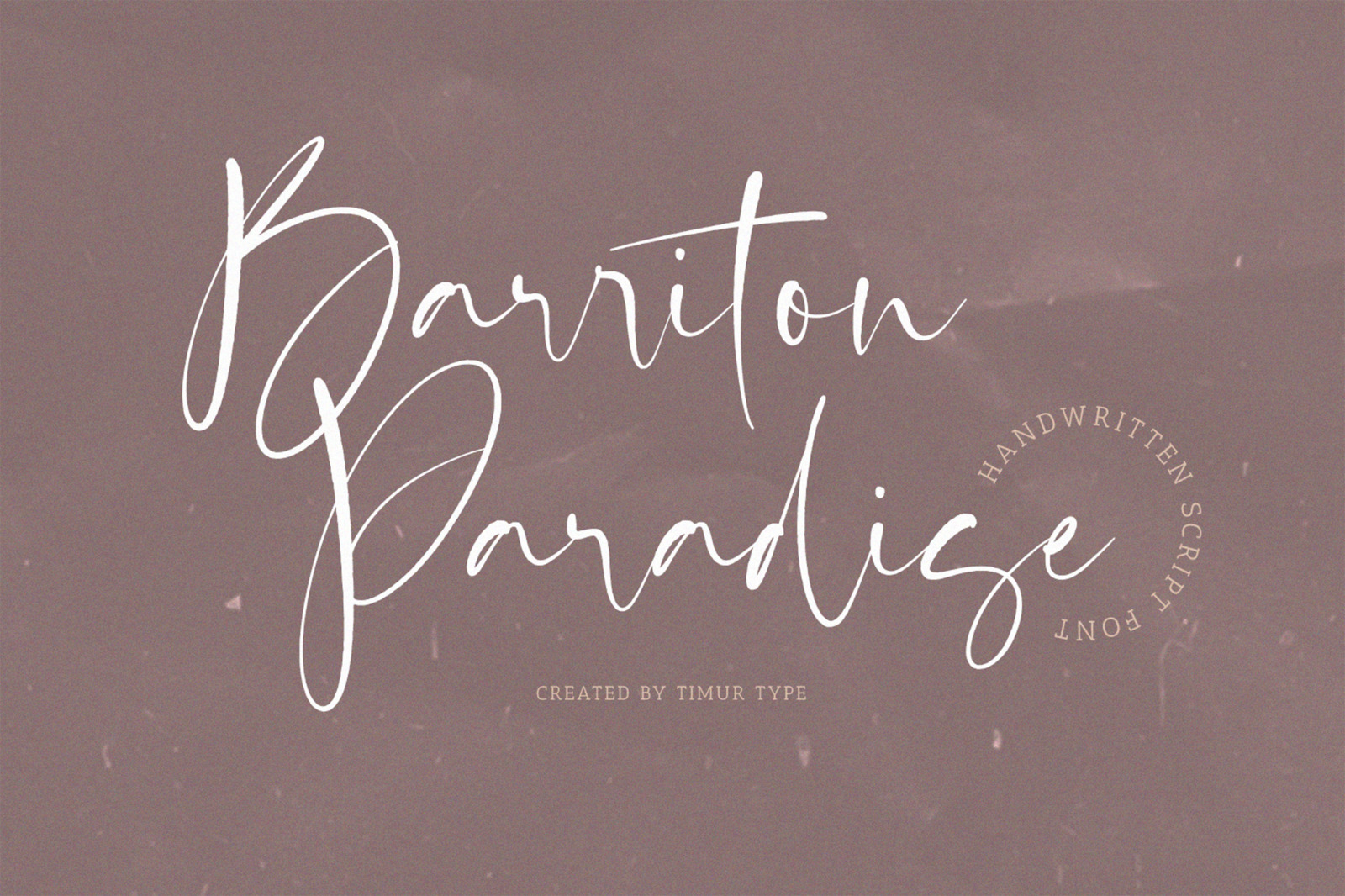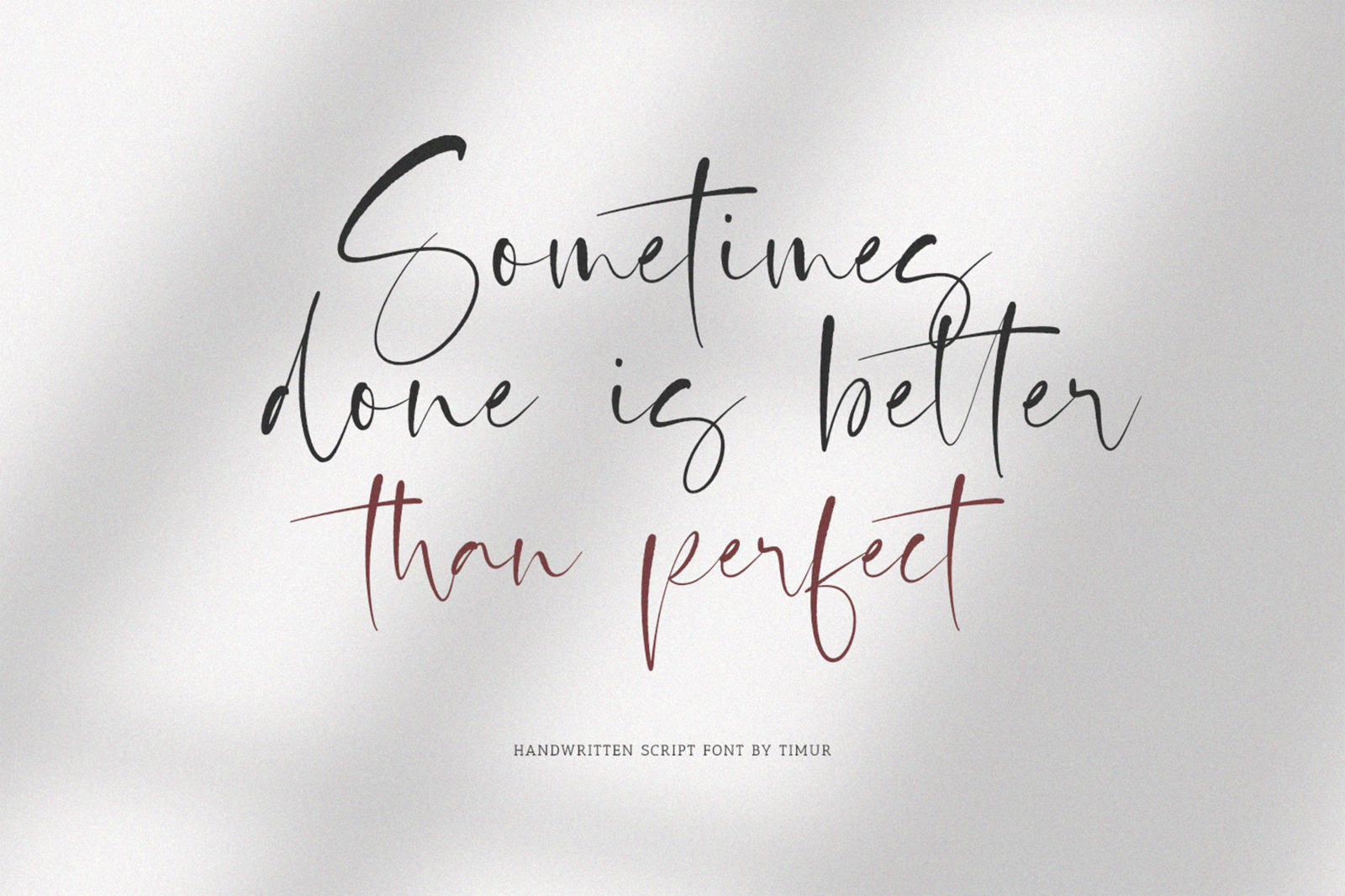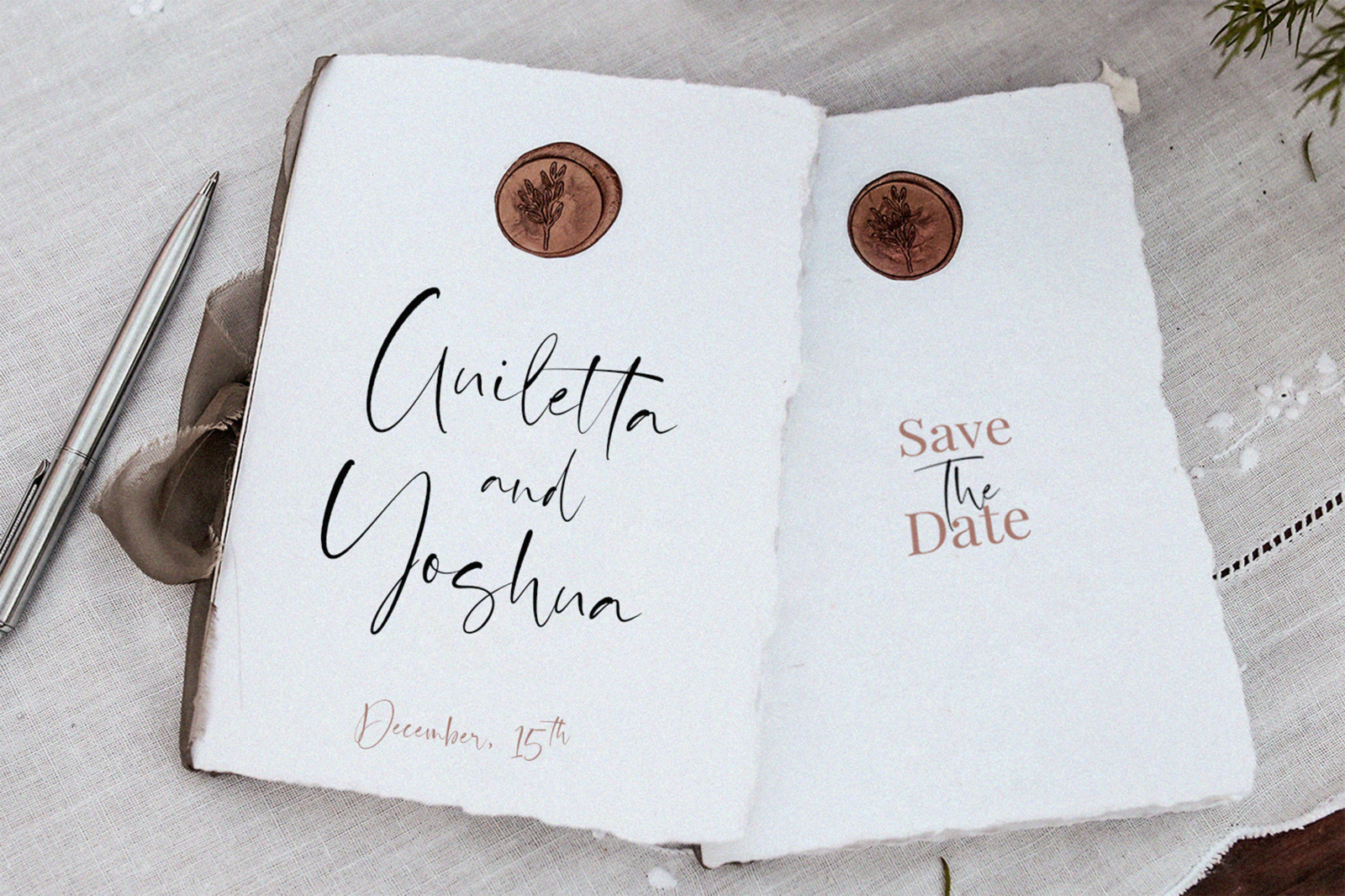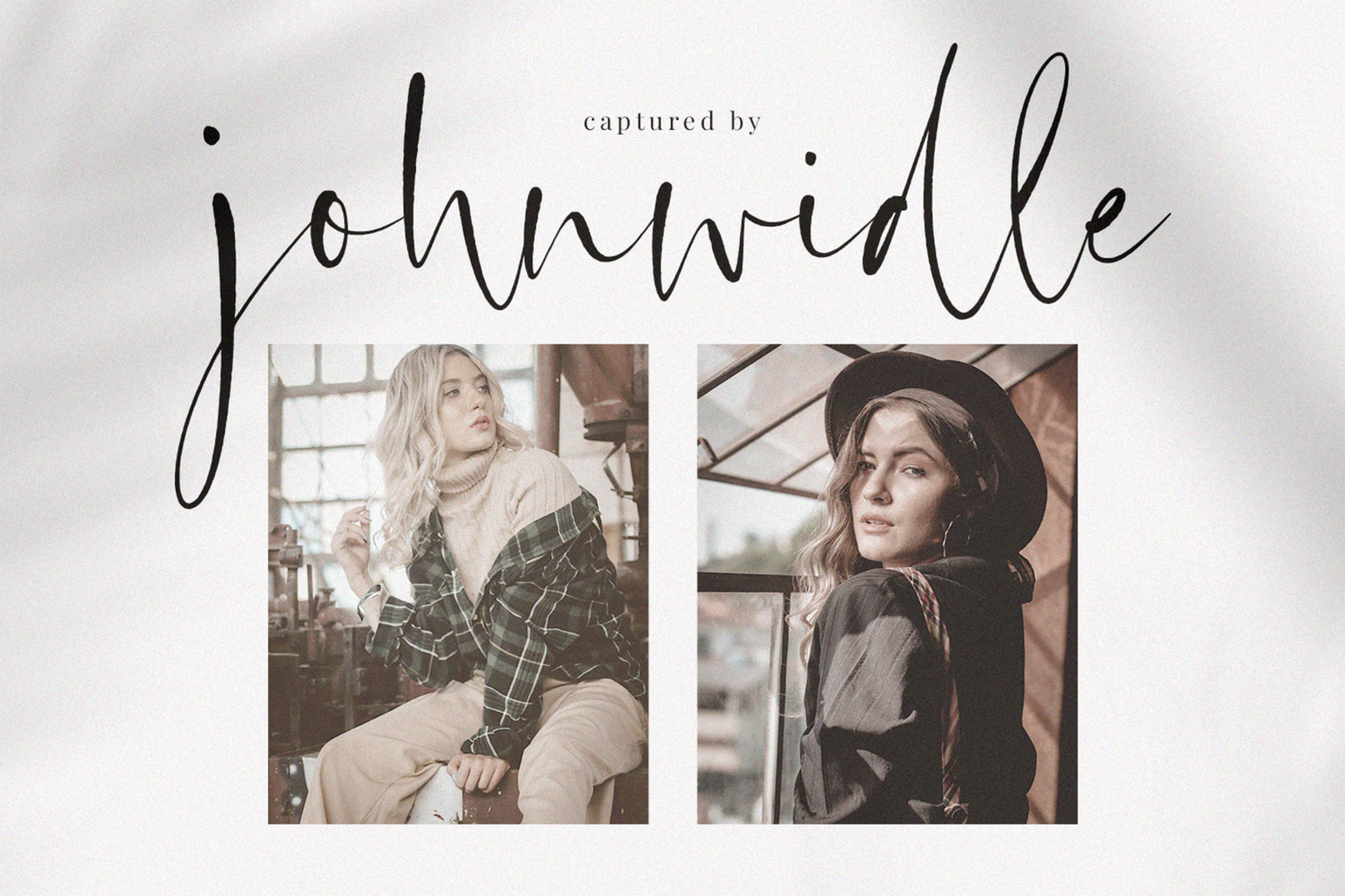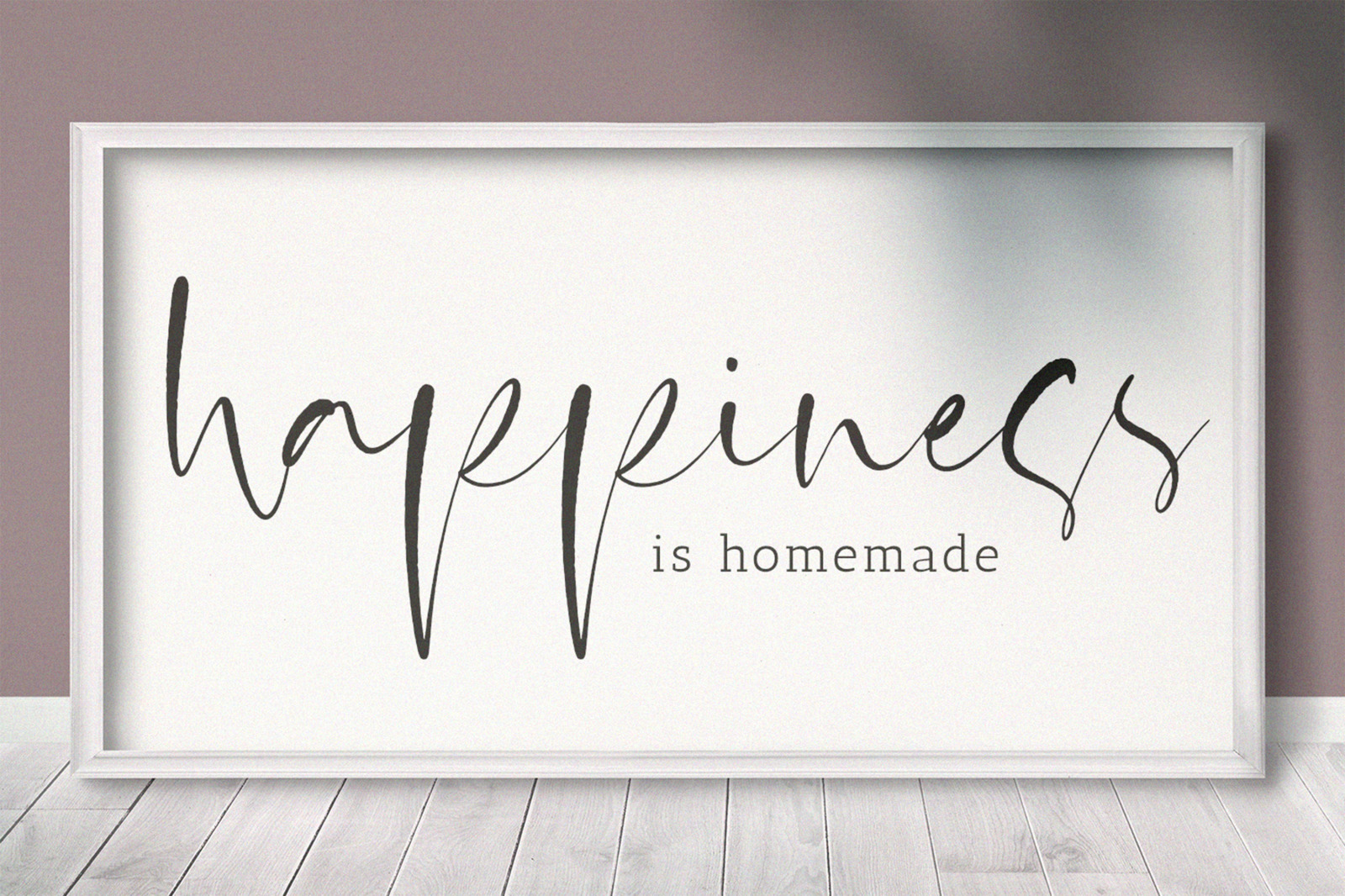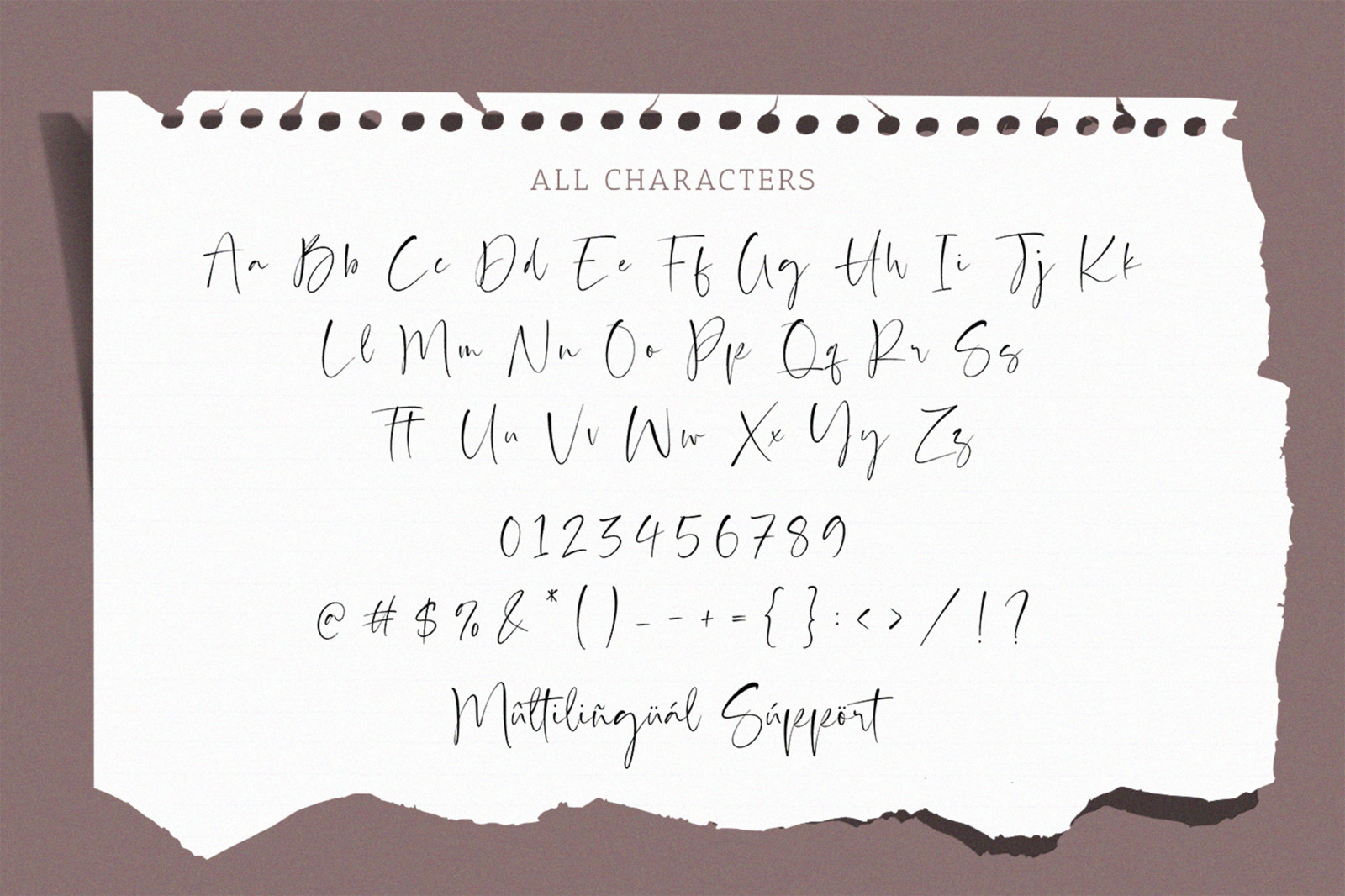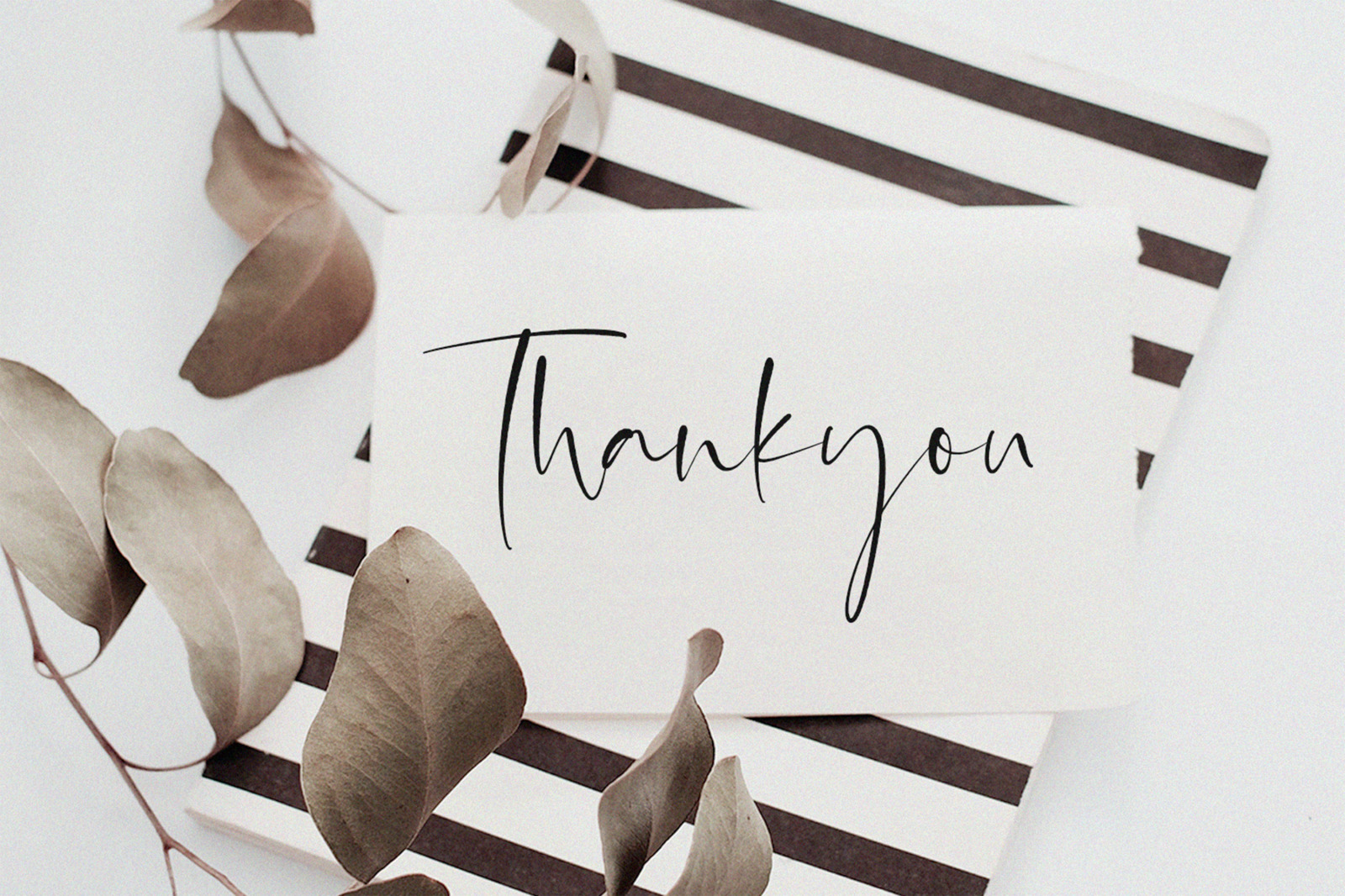
Barriton paradise Fonts
Introducing by Timur type
Proudly Present, Barriton paradise
Barriton paradise A Handwritten Fonts , which was created with great care and specially created for you
This pack is perfect for greeting cards, branding, business cards, quotes, posters, stickers, blogs, logos, weddings, signage, packaging, birth announcements, photo overlays, wall art, quotes, printed materials, bags, t-shirts and much more !
Also multilingual support.